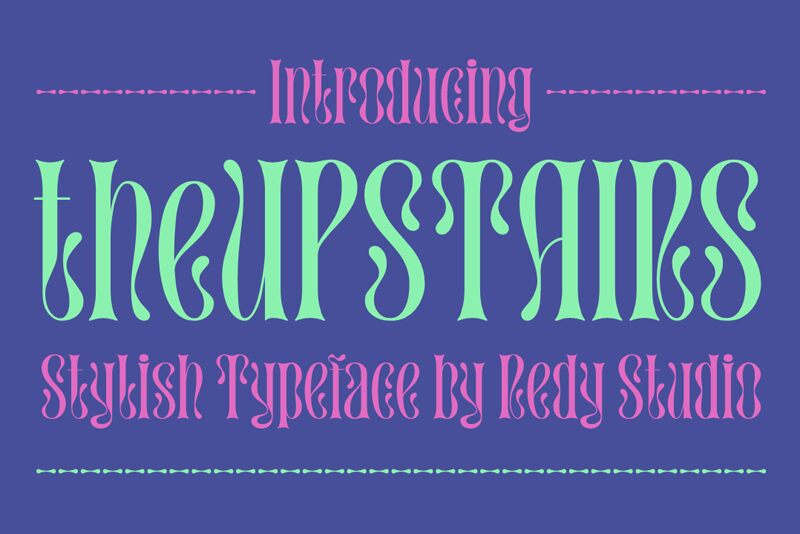
The Upstairs font by Redy Studio is a free font with a vintage look. The decorative typeface adopts a predominantly vintage style in its elements, be that the letters or the varying connecting lines that redo the whole reading experience. The uppercase and lowercase characters are equally creative, both of which can elevate your project, and they’re even better when combined with the peculiar numbers that adorn the display.
Some fonts can be a perfect fit for a couple of projects, but this one can be used for anything and everything. From entertainment where it can decorate book covers, fight billboards, and magazine covers, to fancy invitations like wedding, graduation, or engagement invites, business, branding or packaging projects, and even furniture shops logos.